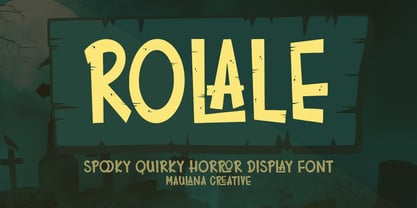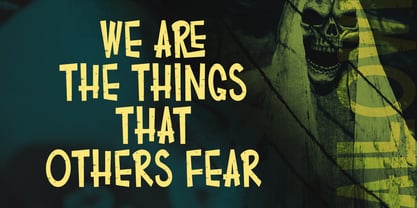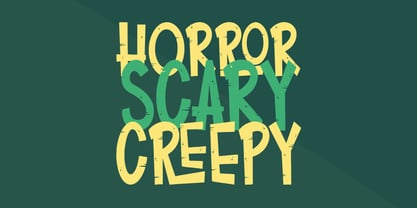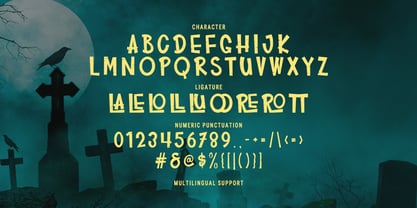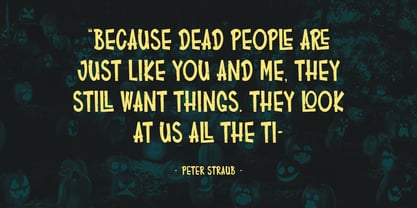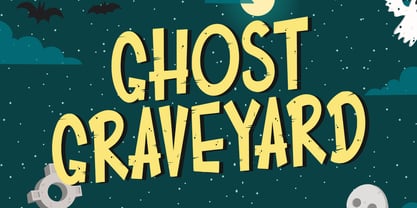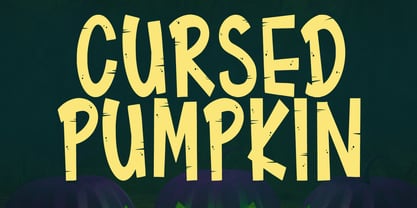
MC Rolale
by Maulana Creative
The MC Rolale Font Family was designed by Gilang Maulana and published by Maulana Creative. MC Rolale contains 1 styles. More about this family
Rolale is a hand-drawn, quirky horror display font designed to bring a playful yet eerie vibe to your creative projects. Inspired by classic spooky cartoons and graveyard aesthetics, this font features irregular shapes, jagged edges, and unique ligatures that give your text a custom, hand-lettered look. Whether you are designing a Halloween party invitation, a spooky book cover, horror themed merchandise, or social media graphics, Rolale adds the perfect touch of "creepy cool." It’s bold and legible. What’s Included: - Unique Character Set: Full alphabet with a quirky, hand-cut feel. - Special Ligatures: Unique letter combinations for a natural flow. - Numbers and Punctuation: Complete set for all your messaging needs. - Multilingual Support: Works for various languages globally.
Designers: Gilang Maulana
Foundry: Maulana Creative